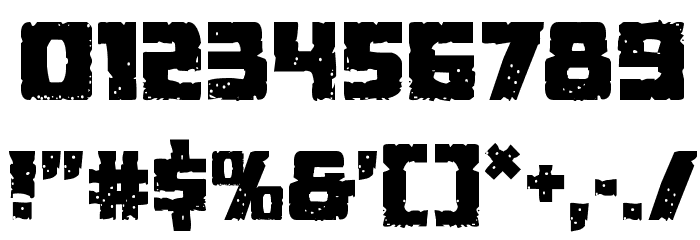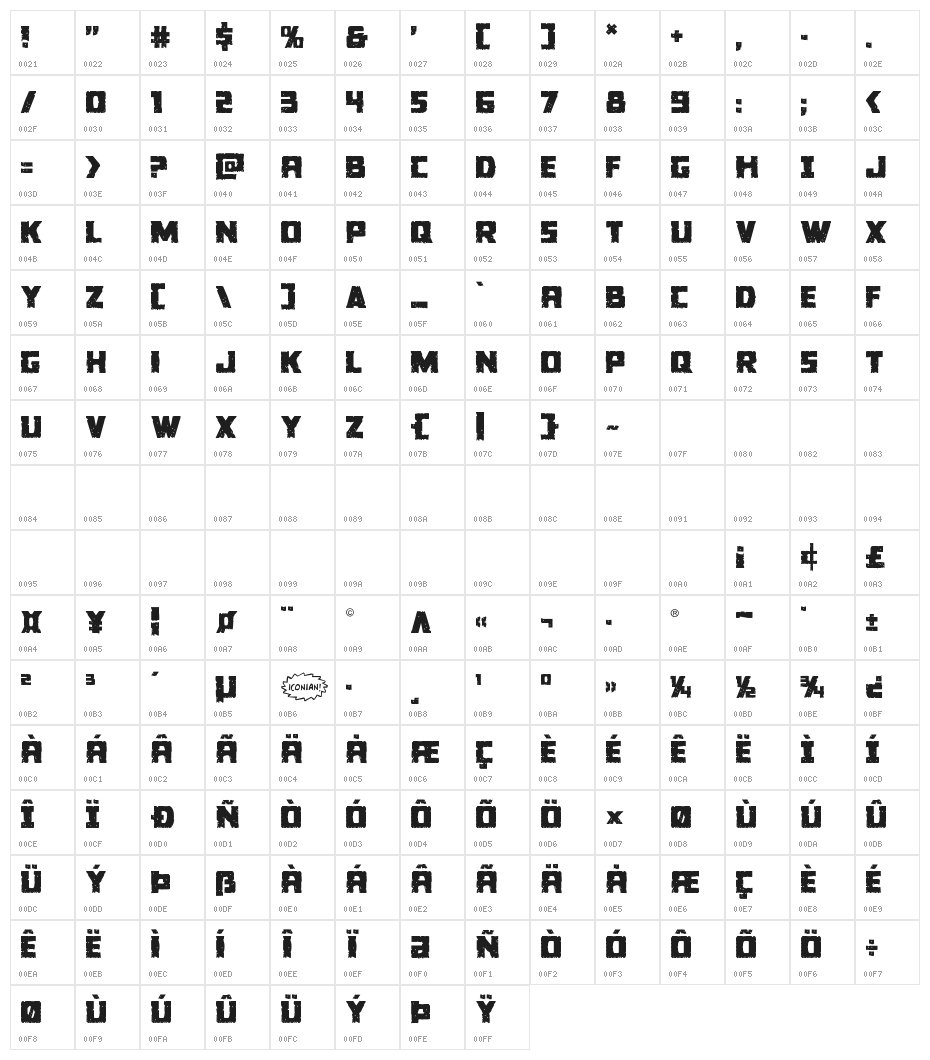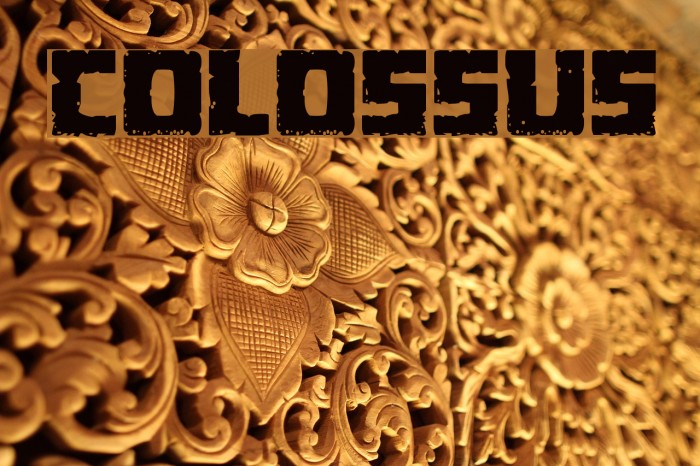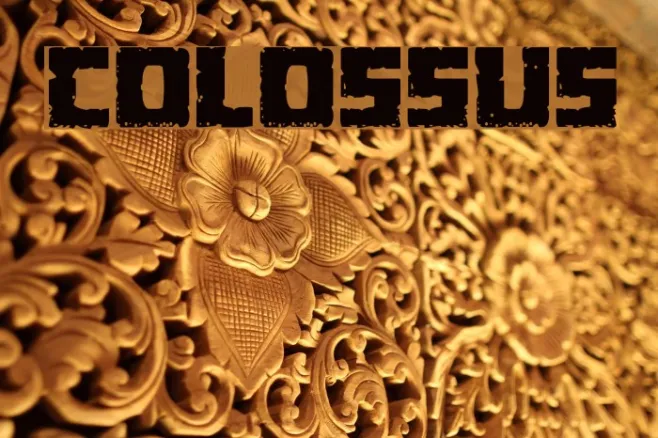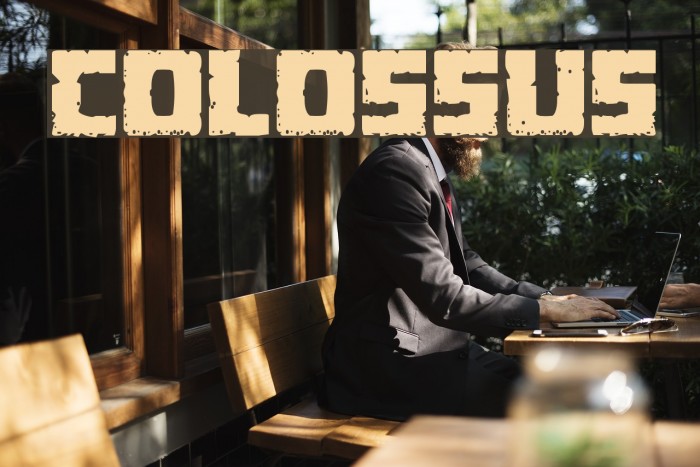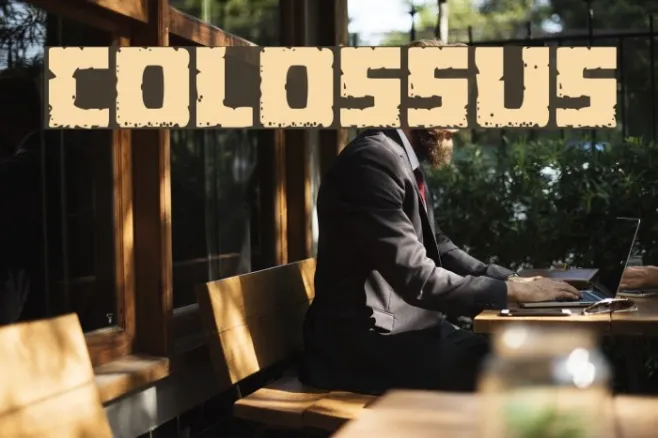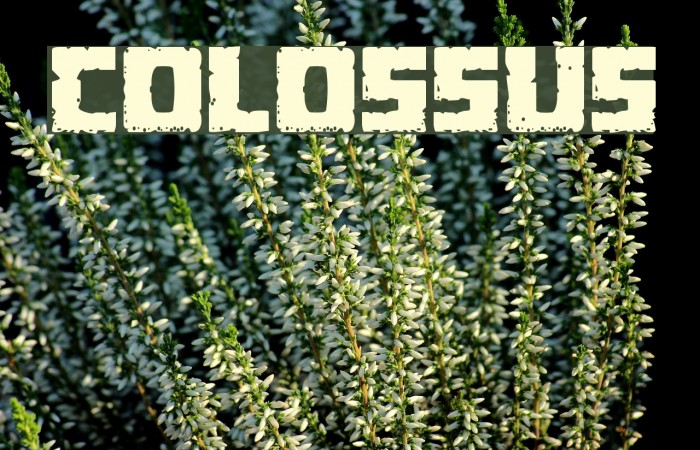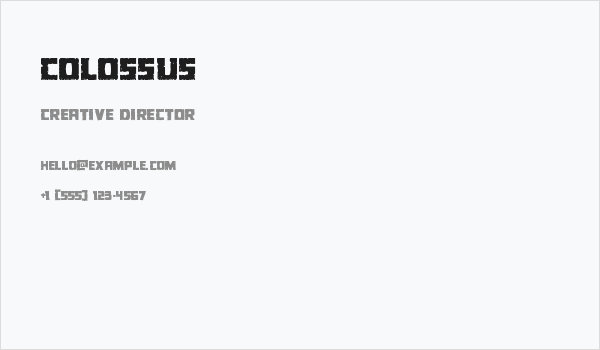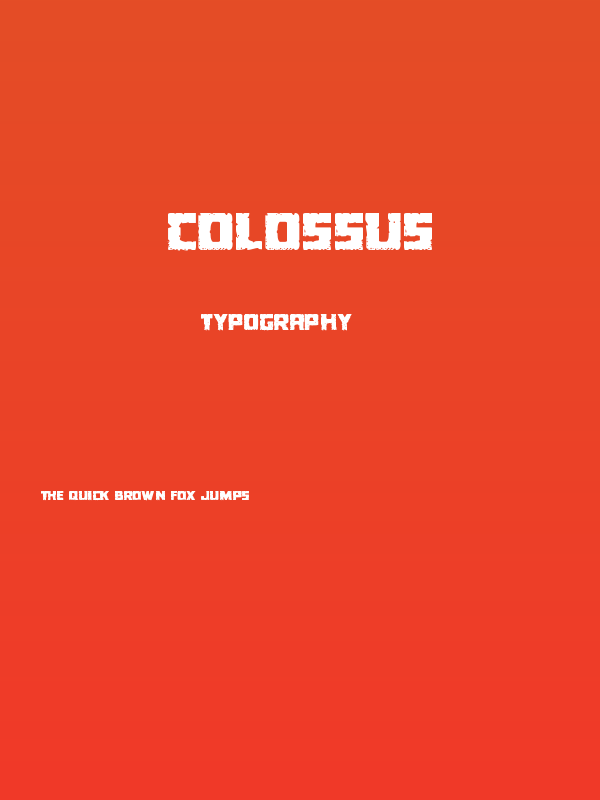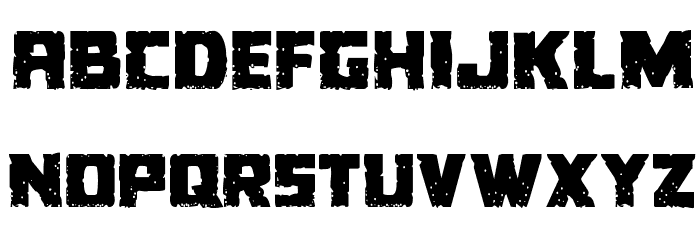
Colossus Font
Colossus Description
This font features a bold and rugged design with a distressed texture that gives it a worn, vintage appearance. The characters are blocky and robust, with a consistent thickness throughout, creating a strong visual impact. The edges are rough and irregular, adding to the distressed look. This style is reminiscent of industrial or grunge aesthetics, making it suitable for projects that require a bold statement. The uppercase letters are prominent, and the numbers and special characters maintain the same rugged style, ensuring consistency across all text elements.
| Proposed Projects | Ideal for posters, album covers, branding for outdoor or adventure products, and any design needing a strong, vintage aesthetic. |